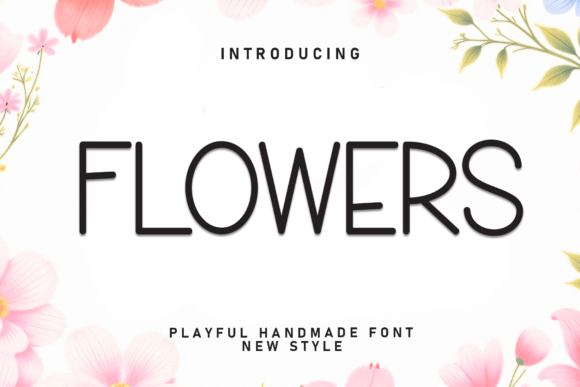
Introducing Flowers Font: The Perfect Blend of Simplicity and Friendliness
Are you looking for a font that combines simplicity with a friendly, approachable vibe? Look no further than Flowers Font. This casual and neat display font is designed to capture the essence of modern handwritten typography with a polished finish. With its clean lines, balanced letterforms, and subtle rounded edges, Flowers Font is ideal for a wide range of design applications, from branding and headlines to packaging and digital content.
Key Features of Flowers Font
• Clean Lines: Flowers Font features clean lines that give it a crisp, modern look. This makes it perfect for designs that require a bit of sophistication and elegance.
• Balanced Letterforms: The font’s balanced letterforms ensure that it remains clear and legible, even at smaller sizes. This makes it versatile for use in a variety of contexts, from headlines to body text.
• Subtle Rounded Edges: The subtle rounded edges of Flowers Font give it a friendly, approachable vibe. This makes it perfect for brands that want to convey a sense of warmth and approachability.
Ideal Design Applications for Flowers Font
Flowers Font is a versatile font that can be used in a wide range of design applications. Here are some of the ideal uses for this font:
• Branding: Flowers Font is perfect for branding projects that require a friendly, approachable vibe. Its clean lines and balanced letterforms make it suitable for use in logos, business cards, and other marketing materials.
• Headlines: The font’s bold, yet elegant design makes it perfect for headlines. It can be used to create eye-catching titles for articles, blog posts, and other digital content.
• Packaging: Flowers Font is also suitable for use in packaging design. Its clean lines and subtle rounded edges make it perfect for labels, product packaging, and other materials.
• Digital Content: The font’s versatility and legibility make it perfect for use in digital content, such as website headers, social media graphics, and email marketing campaigns.
The Benefits of Using Flowers Font
Flowers Font offers a range of benefits for designers and brands. Here are some of the key advantages of using this font:
• Warm and Inviting: Flowers Font adds a warm and inviting touch to any design. Its friendly, approachable vibe makes it perfect for brands that want to convey a sense of approachability and warmth.
• Crisp Structure: The font’s crisp structure ensures that it remains clear and legible, even at smaller sizes. This makes it perfect for use in a variety of contexts, from headlines to body text.
• Versatile Style: Flowers Font has a versatile style that makes it suitable for use in a wide range of design applications. Its clean lines and balanced letterforms ensure that it remains elegant and sophisticated, even in bold or italic styles.
Typography Tips for Using Flowers Font
Here are some typography tips for using Flowers Font:
• Pair with Other Fonts: Flowers Font can be paired with other fonts to create a unique and visually appealing typography scheme. Try pairing it with a sans-serif font for a bold, modern look.
• Use in Headlines: Flowers Font is perfect for use in headlines. Try using it to create eye-catching titles for articles, blog posts, and other digital content.
• Experiment with Colors: Flowers Font can be used in a variety of colors to create a unique and visually appealing design. Try experimenting with different colors to find the perfect combination for your brand.
In conclusion, Flowers Font is a versatile and elegant font that combines simplicity with a friendly, approachable vibe. Its clean lines, balanced letterforms, and subtle rounded edges make it perfect for a wide range of design applications, from branding and headlines to packaging and digital content. With its warm and inviting touch, crisp structure, and versatile style, Flowers Font is the perfect choice for designers and brands looking to add a touch of elegance and sophistication to their designs.